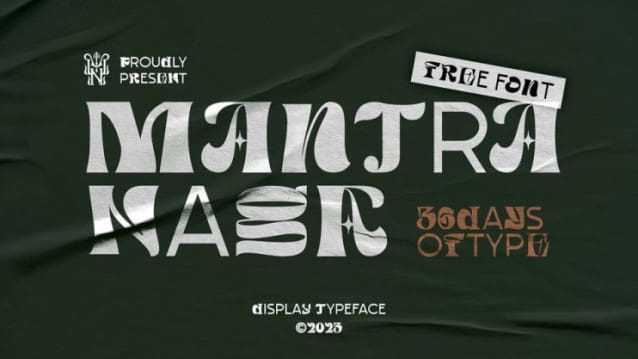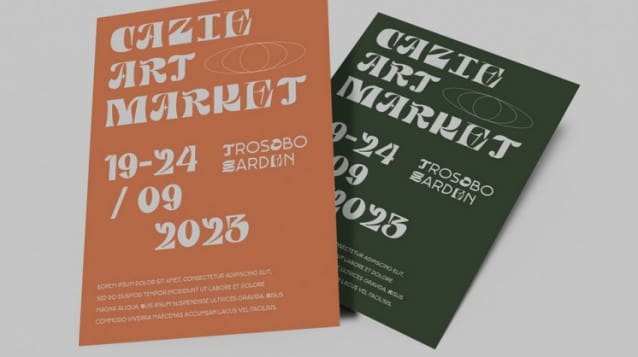
MANTRANAGA 36DOT FONT
Mantranaga 36DOT Font is a display typeface created to celebrate the 10th edition of 36daysofttype in 2023. We created various font styles, from serif, sans, to decorative typefaces.
Mantranaga 36DOT is the font that’s a symphony of creativity, where every character is a unique work of art. Each letter is an imaginative masterpiece, featuring intricate details, innovative flourishes, and a touch of artistic flair. This font is perfect for designs that require a sense of individuality and a touch of creative originality.